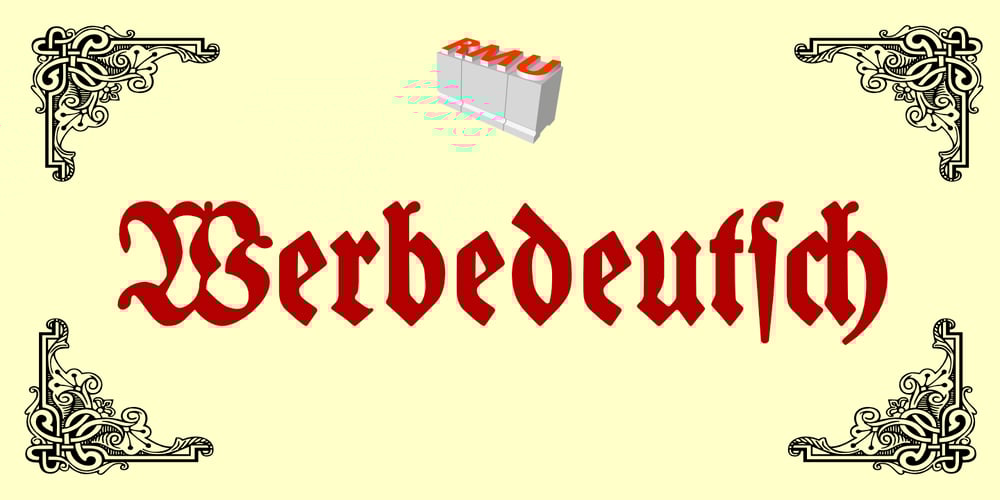
Werbedeutsch
Werbedeutsch font
Werbedeutsch Font Family was designed by Ralph M. Unger and published by RMU. Werbedeutsch contains 1 styles and family package options. A blackletter font I could not resist to revive: Ernst Schneidler’s Buchdeutsch, released by Schelter & Giesecke in 1926 which I renamed as Werbedeutsch.This font contains the letter ‚long s‘ which can be reached in two ways. Either you use the OpenType feature ‚historical forms‘, or you type the integral sign on your keyboard. To achieve all ligatures, it is recommended to activate both standard and discretionary ligatures.